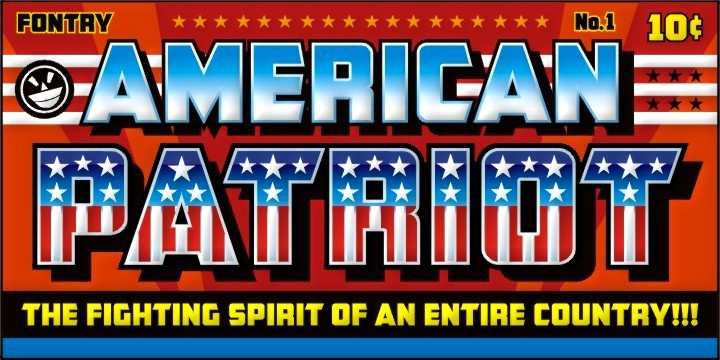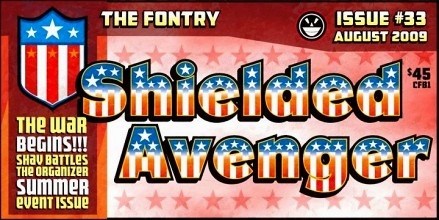
| This is the font pak you never saw coming. The pak that clobbered you over the head and left you seeing stars. This is a tribute to the fighting heroes of comics' golden and silver age, when a true patriot could don the red, white and blue and become an American hero, a fighting legend. Tyranny and evil can never hide from these colors. Justice and liberty will always find them. Goodness will triumph. Old Glory will wave high and proud. With these vintage letterforms, you'll be putting country first and asking yourself what took so long? Get this nation back on its firm footing. Fight for what you believe! Be a real American! Be a patriot! |
| Another cool spec book from the Fontry! This one will show you how to get all those stars and stripes stacked up and working right. After all, we did promise you three fonts, sure. But those three fonts come in six variations of Old Glory's proud colors. Of course you'll get a plain version of each font, to complement the red, white and blue effect, but from there you receive two "spangled" variations, with horizontal or vertical stripes, a non-spangled "red, white, blue" only variant, and two black and white solids of the "spangled" faces. It's enough to make even the most diehard patriot shed a star-filled tear. |